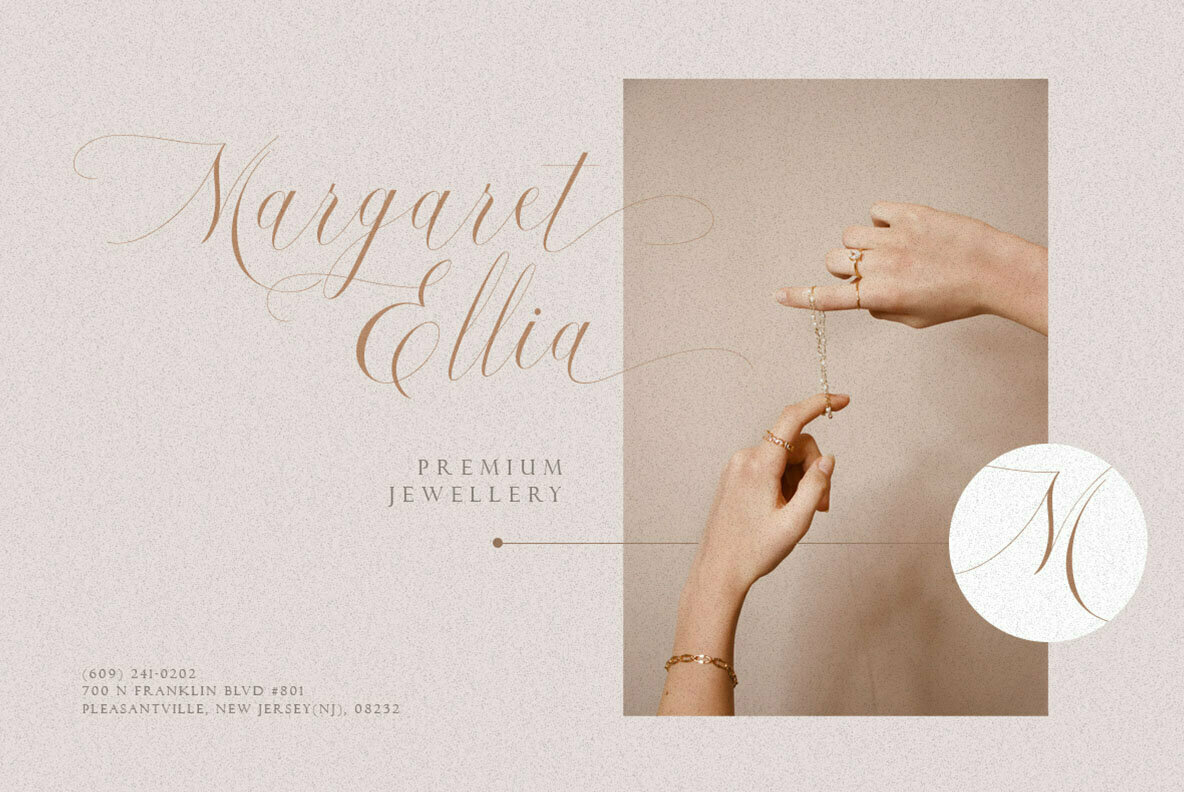
Hallmarks Font
Hallmarks Regular
Hallmarks presents a beautiful calligraphy font, exuding elegance with its flowing swashes. This font infuses designs with a soft, feminine touch, making it an ideal choice for those seeking sophistication. Whether you're designing wedding invitations, crafting memorable quotes, or developing standout packaging, Hallmarks offers a refined aesthetic that elevates your creative projects gracefully.Hallmarks: Elegant Calligraphy for Refined Designs